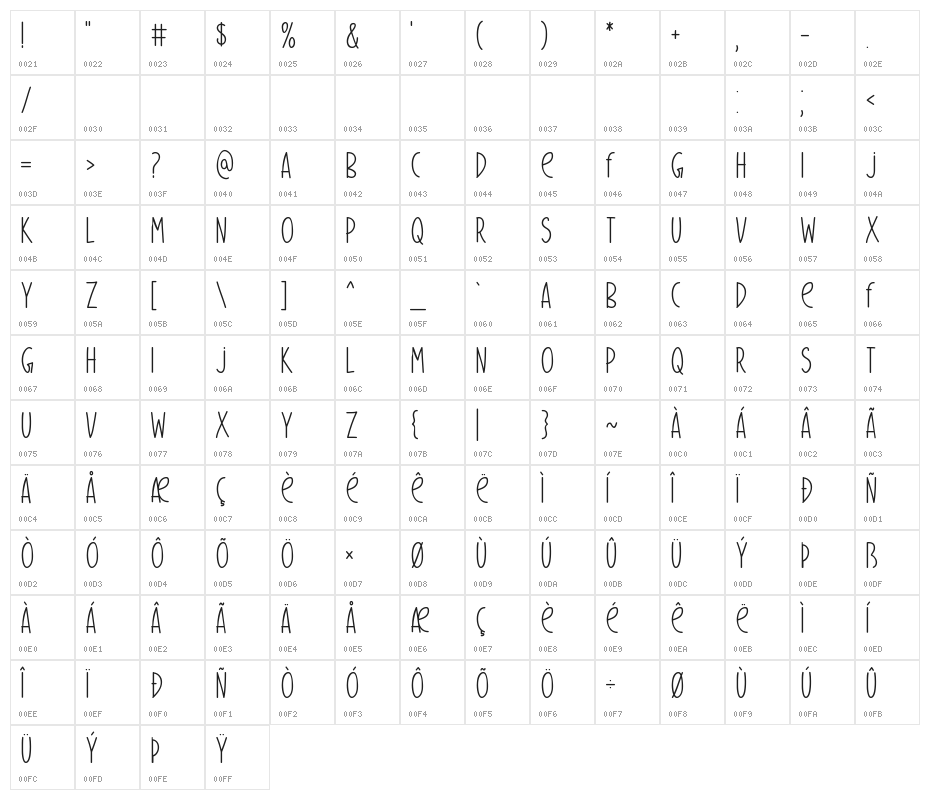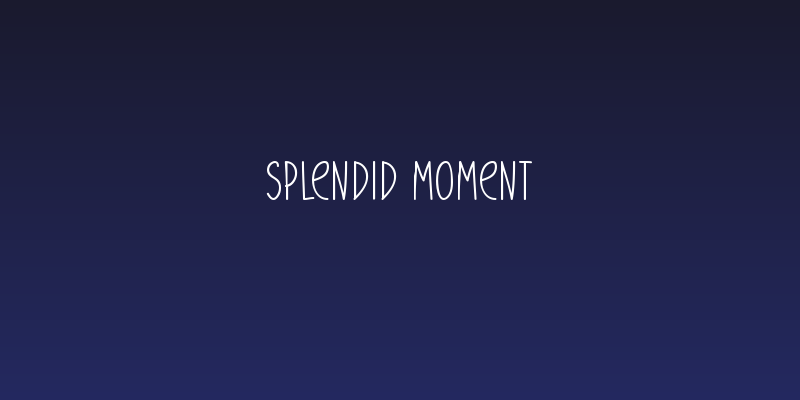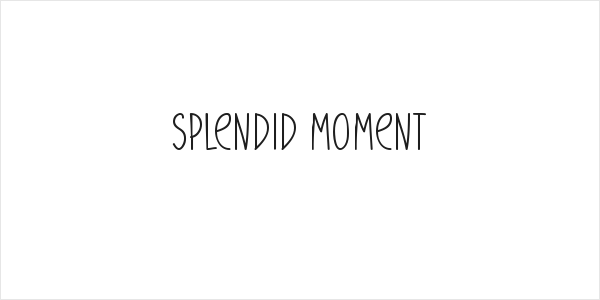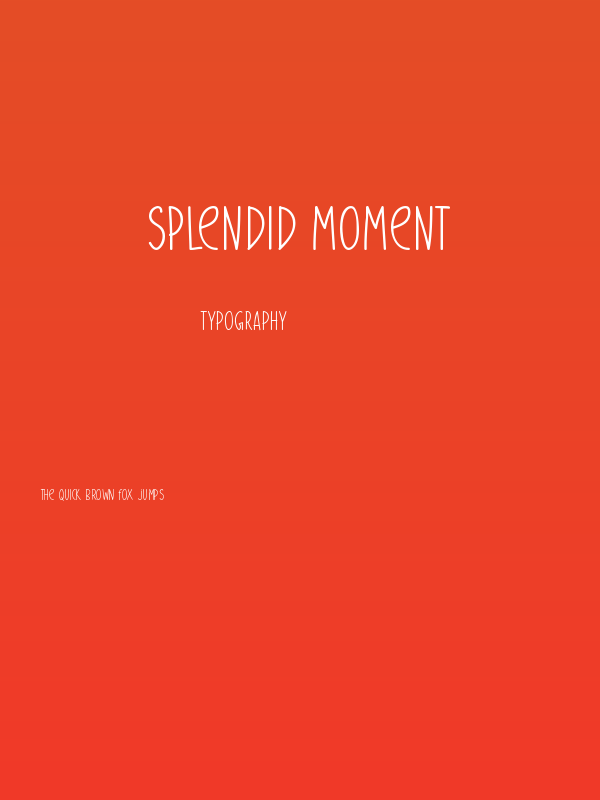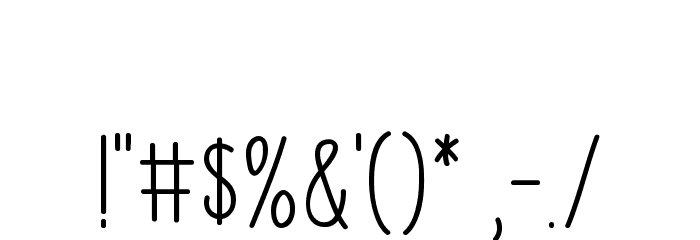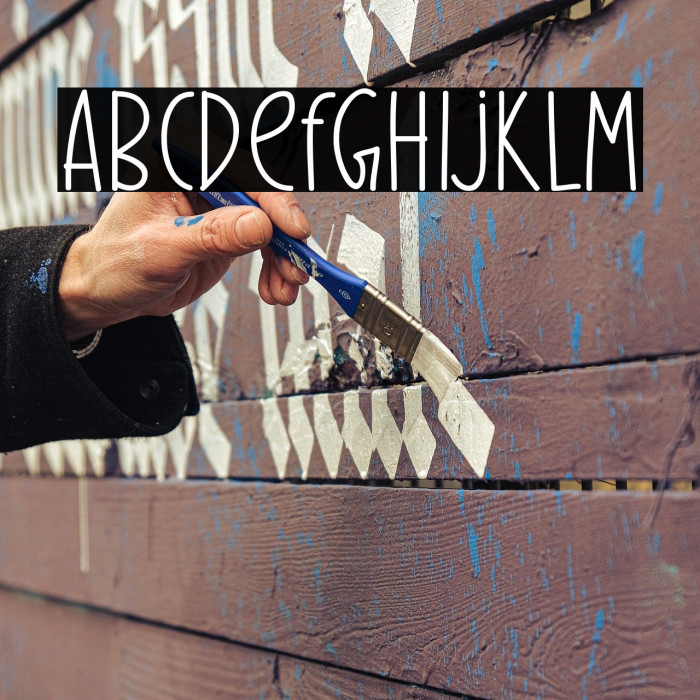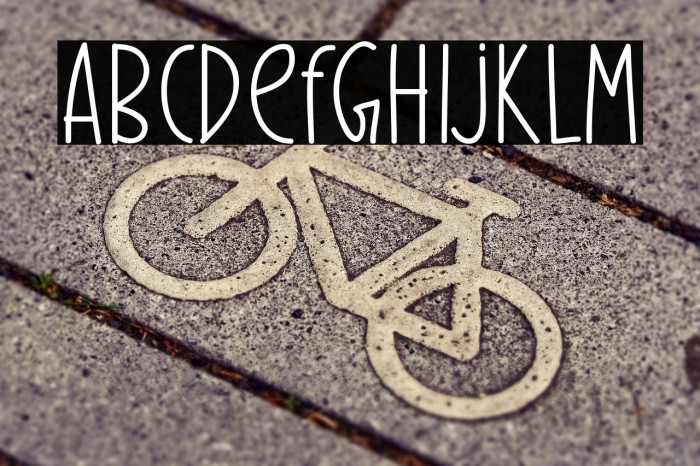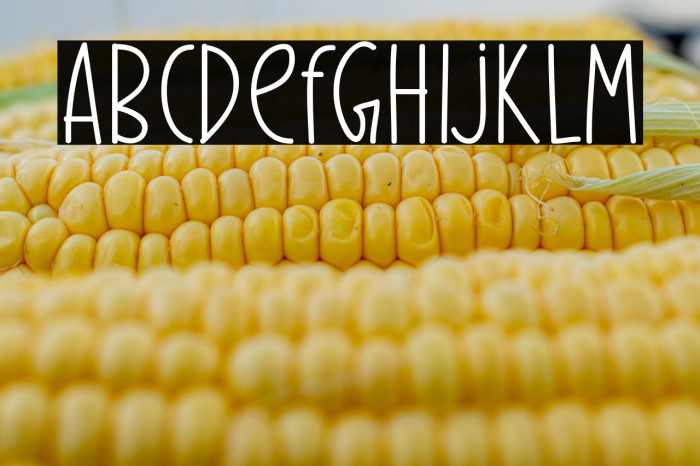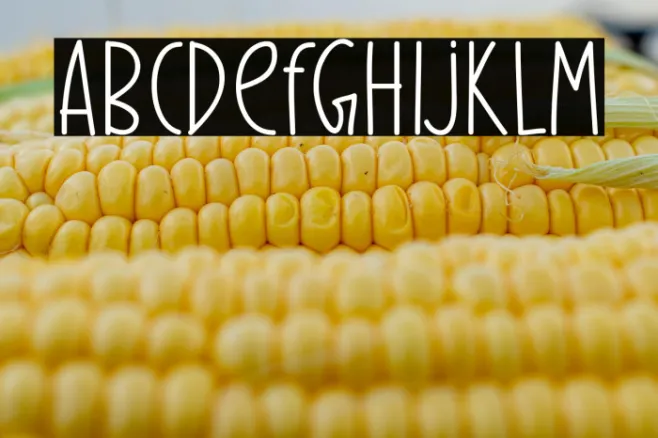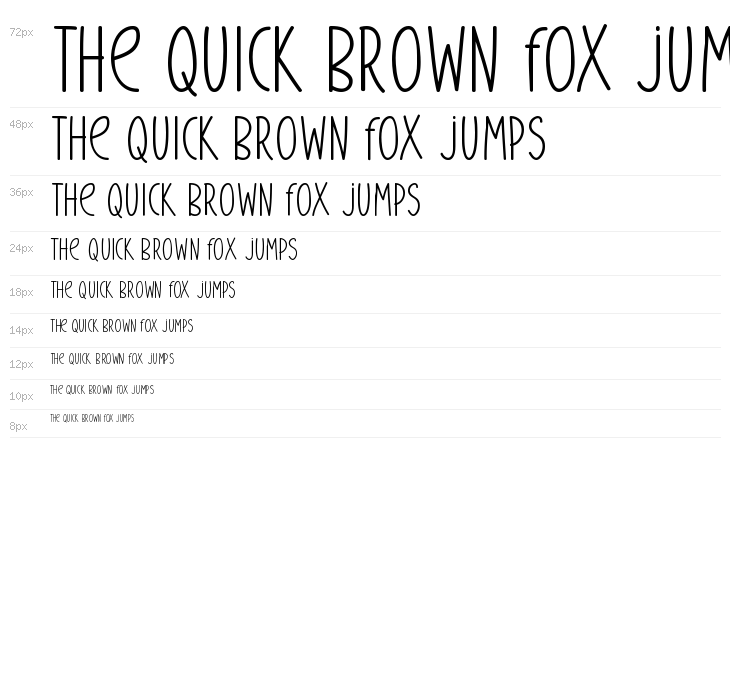
Splendid Moment Font
Splendid Moment Description
This font features a playful and whimsical design, characterized by its tall, narrow letters and slightly irregular strokes that give it a hand-drawn appearance. The uppercase and lowercase letters maintain a consistent style, with rounded edges and a casual feel. The numerals and special characters complement the alphabet with similar quirky details. This font's unique charm makes it suitable for projects that require a touch of personality and creativity.